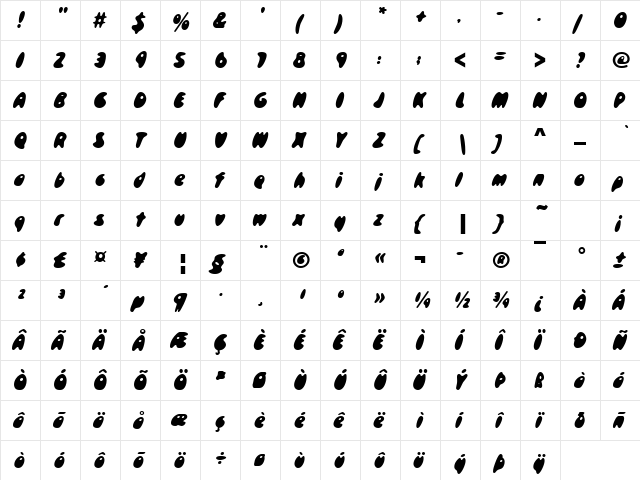
Skidoos Becker Regular
Design Context for Skidoos Becker Typeface
Skidoos Becker is a composed and adaptable typeface that performs quietly and consistently across a wide range of design contexts.